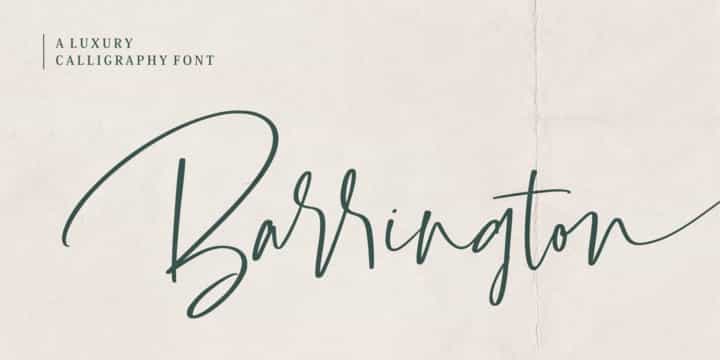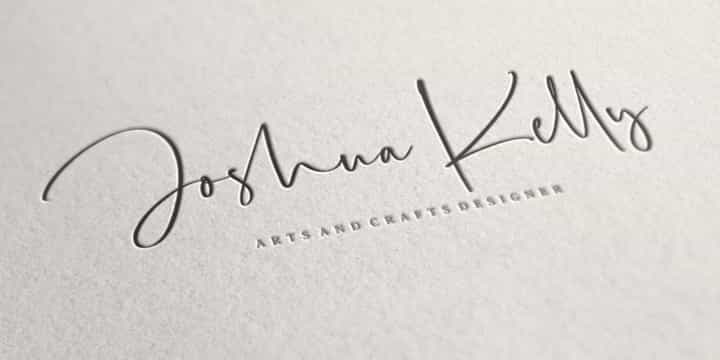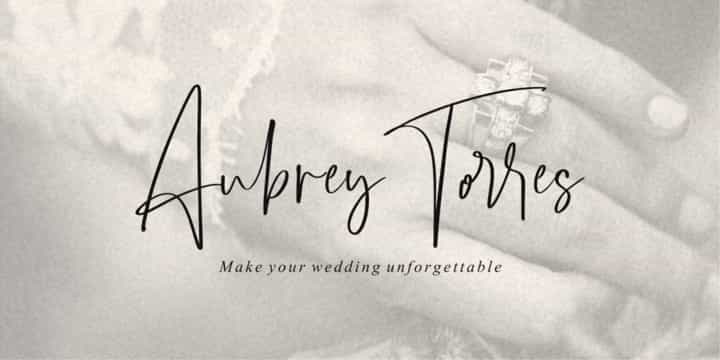
Introducing Barrington Font! Barrington is a relaxed style font, taste luxurious and can be applied to any style of small or broad, very useful can be applied in large and small sizes gg. Barrington It comes with 64 ligatures which raises your design. Uppercase Alternates gives you an alternative on how capitalized text appears. ending swash.